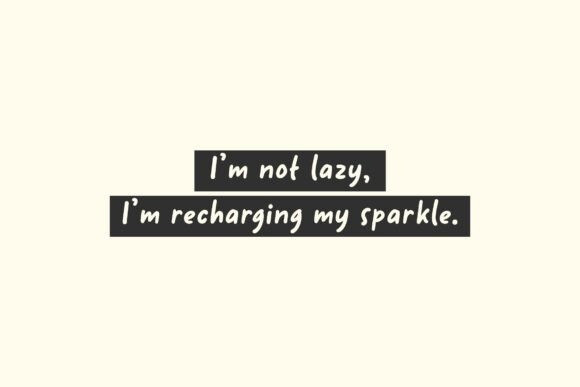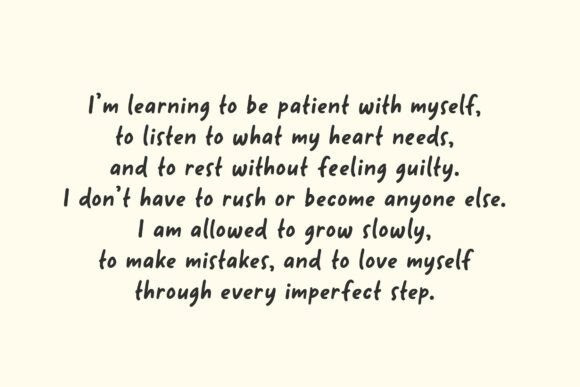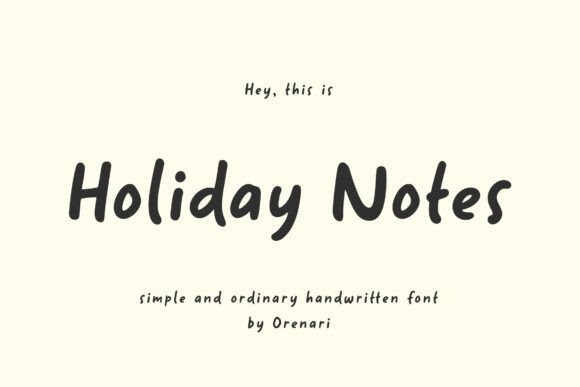
Holiday Notes Script Font
Holiday Notes Script Font a simple yet soulful typeface designed by Orenari.In an era of digital perfection, the Holiday Notes font stands out by embracing the “ordinary” beauty of human touch. It features organic, rounded strokes and a casual rhythm that makes every word feel like a personal message from a friend.
The Holiday Notes typeface is the ultimate companion for lifestyle bloggers, journalers, and small business owners who want to establish a friendly, approachable brand identity. Because of its clean and “not-too-messy” handwritten style, the Holiday Notes font pairs beautifully with elegant serifs or bold, minimalist sans-serifs to create a sophisticated editorial look.
It is perfect for “Dear Diary” style blog headers, aesthetic Instagram stories, or custom recipe cards. If you are designing packaging for handmade goods, this typeface adds that crucial “artisan” feel that customers love. It’s also a fantastic choice for teaching materials and worksheets, as the letterforms are clear and easy for young readers to follow.
Whether you are documenting your summer travels or creating a “Thank You” note for a client, this font brings a sense of calm and authenticity to your layouts. Let your designs breathe with a typeface that feels as natural as ink on paper.